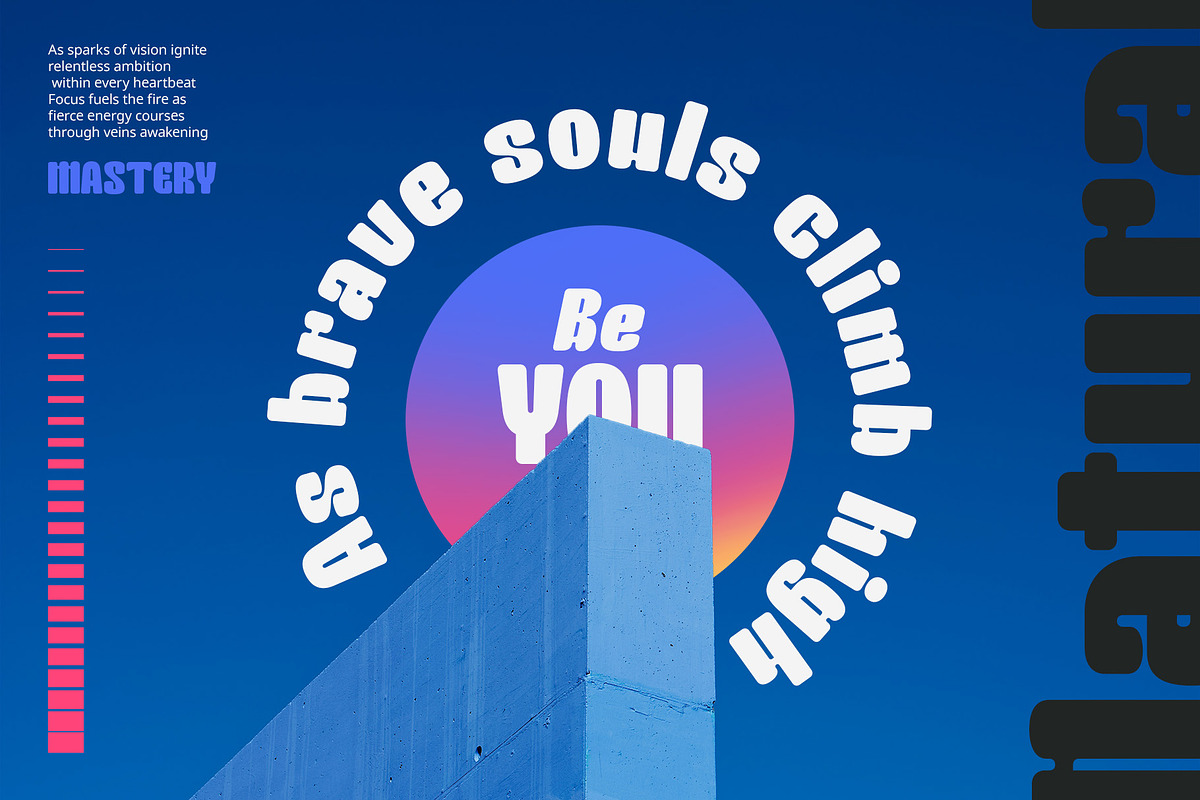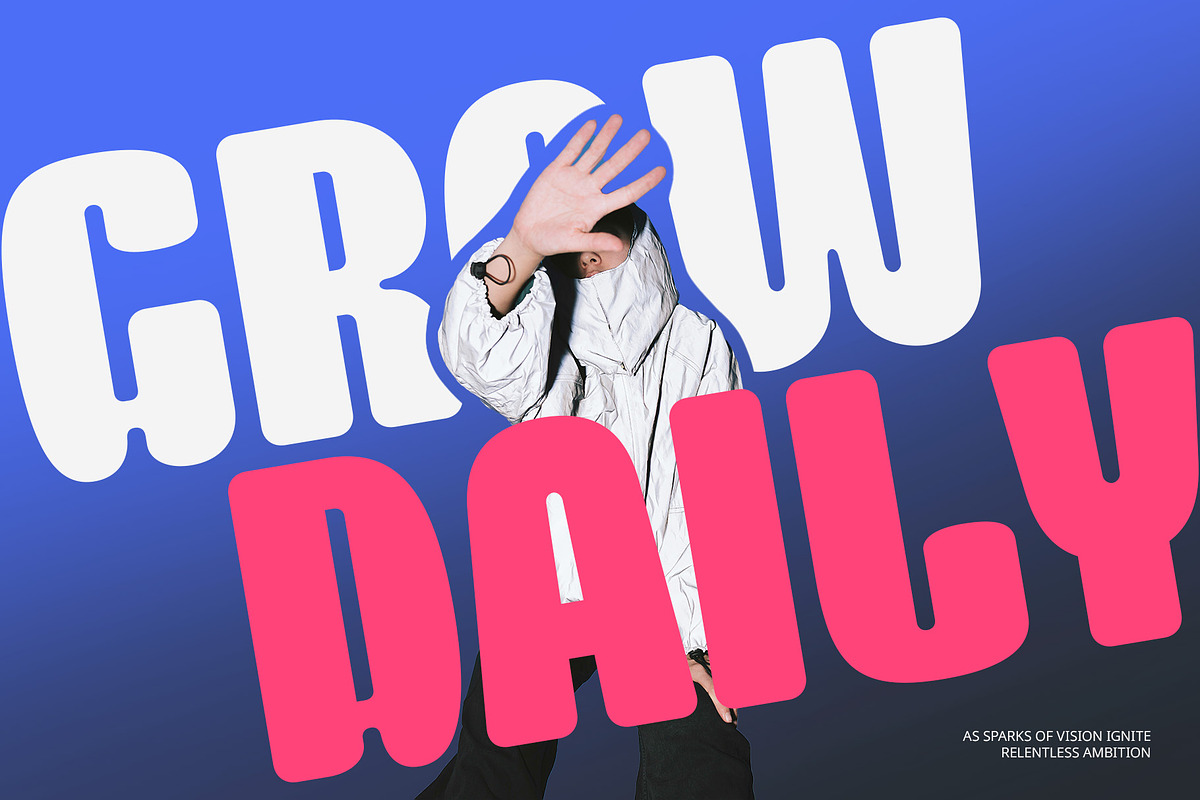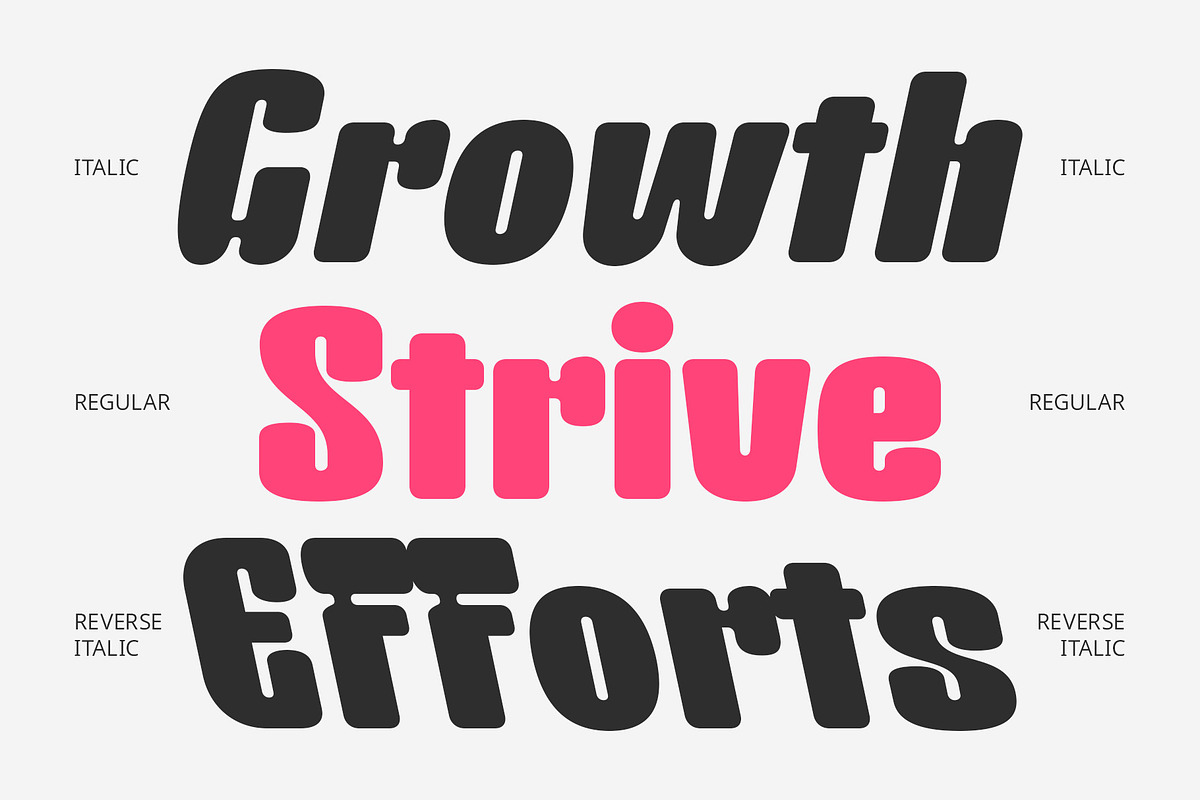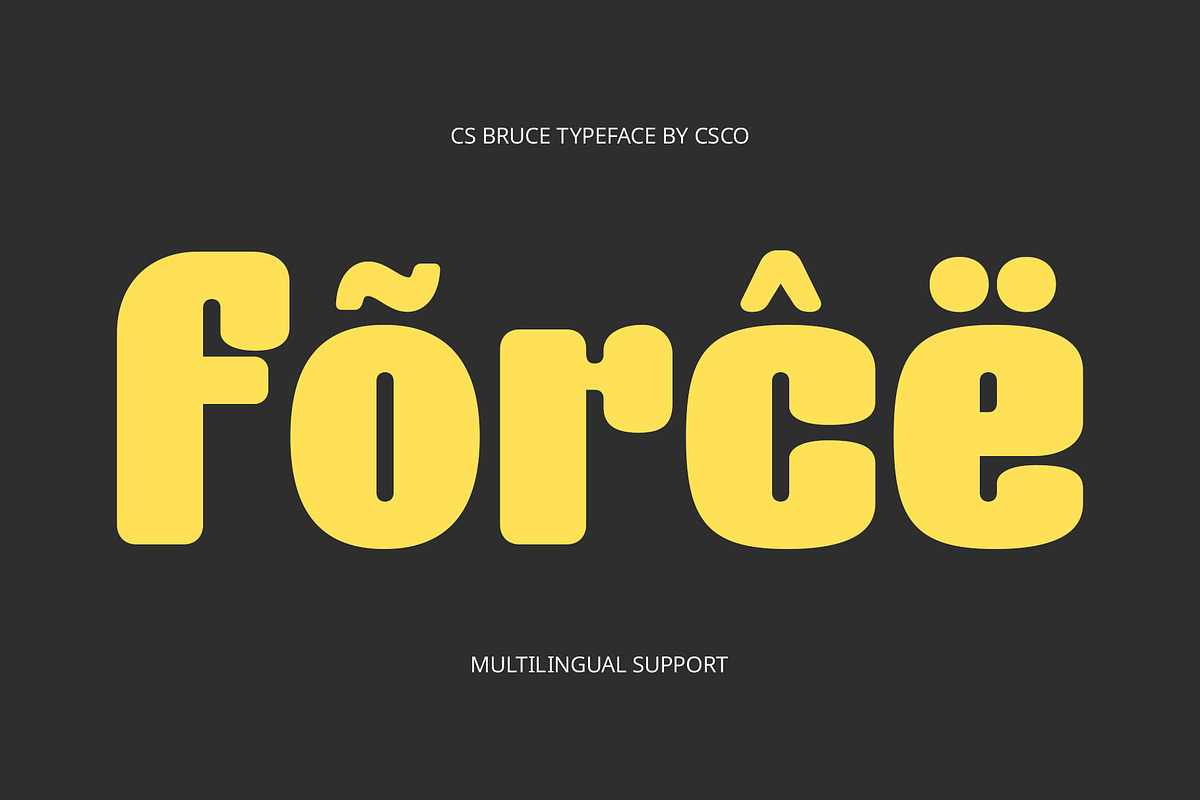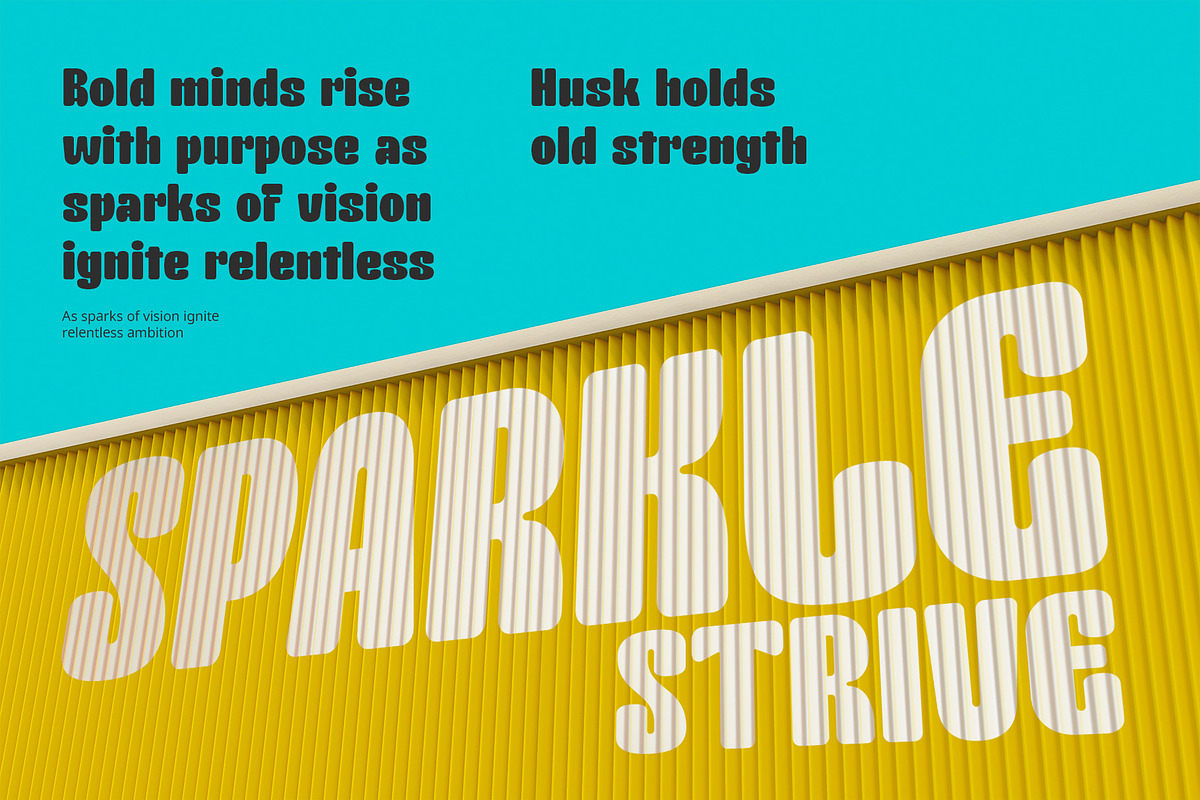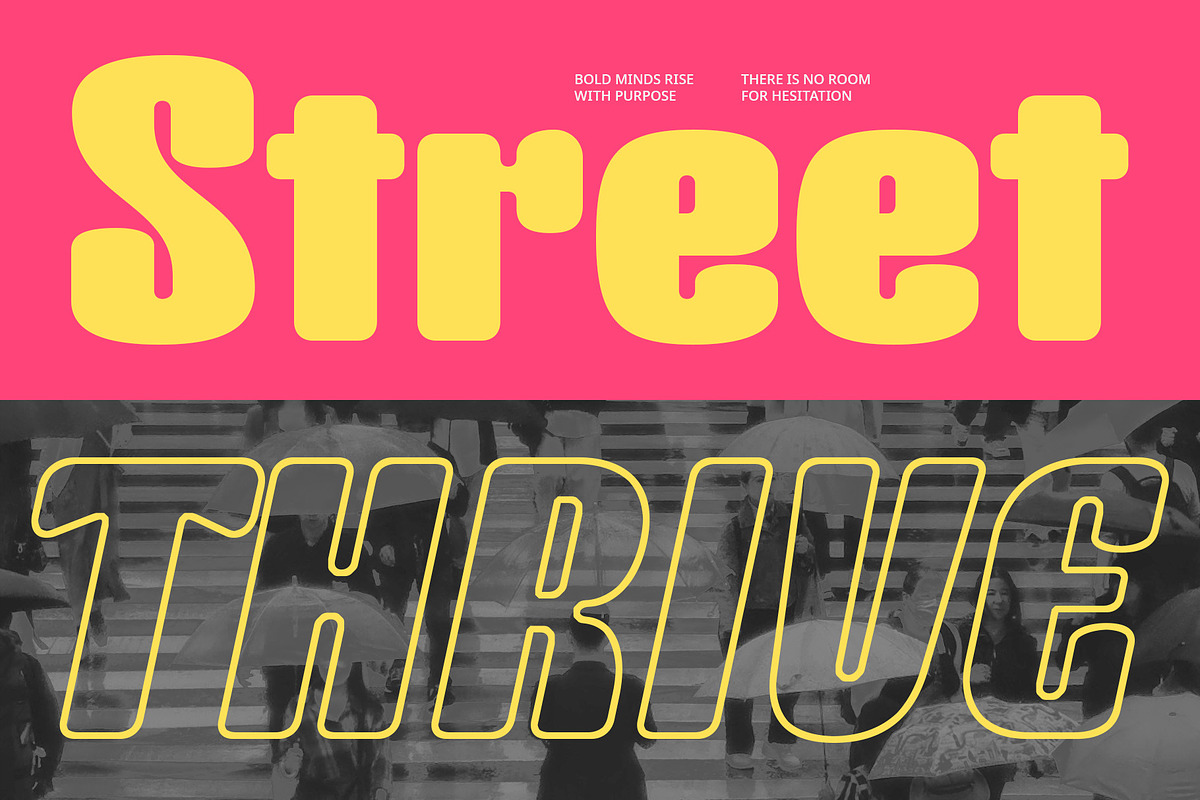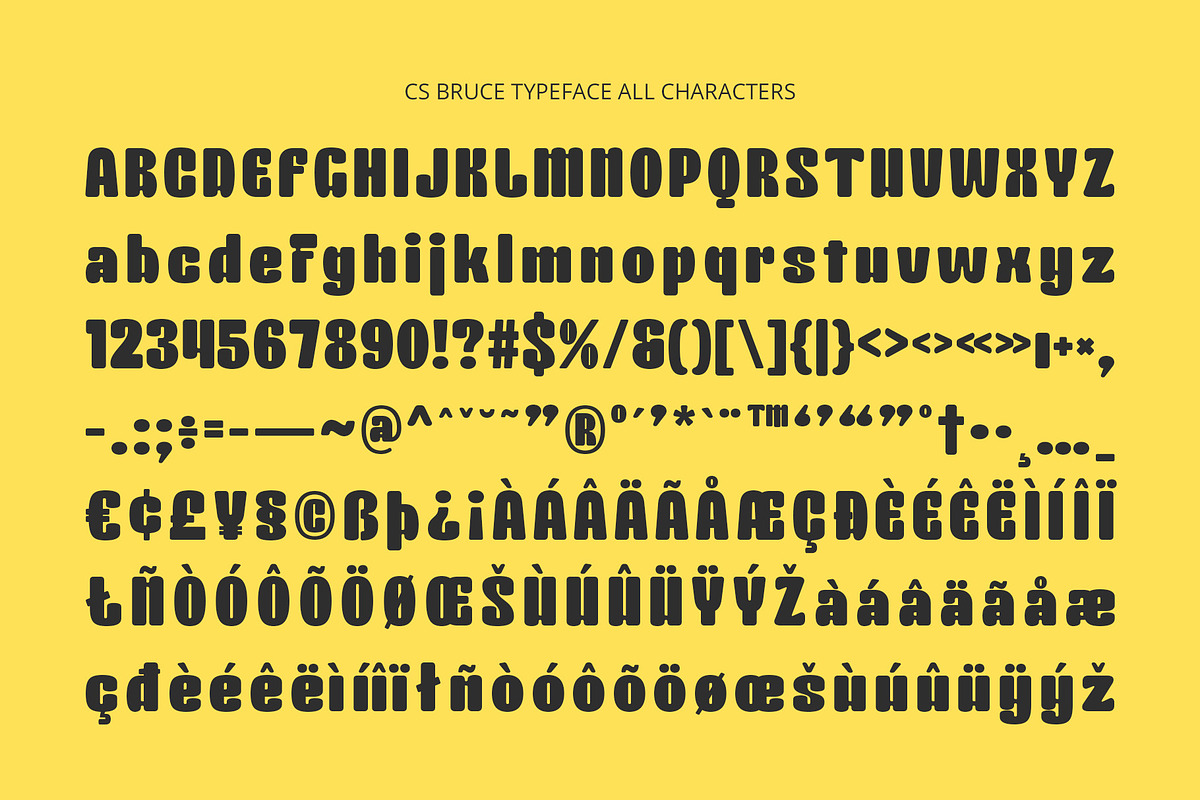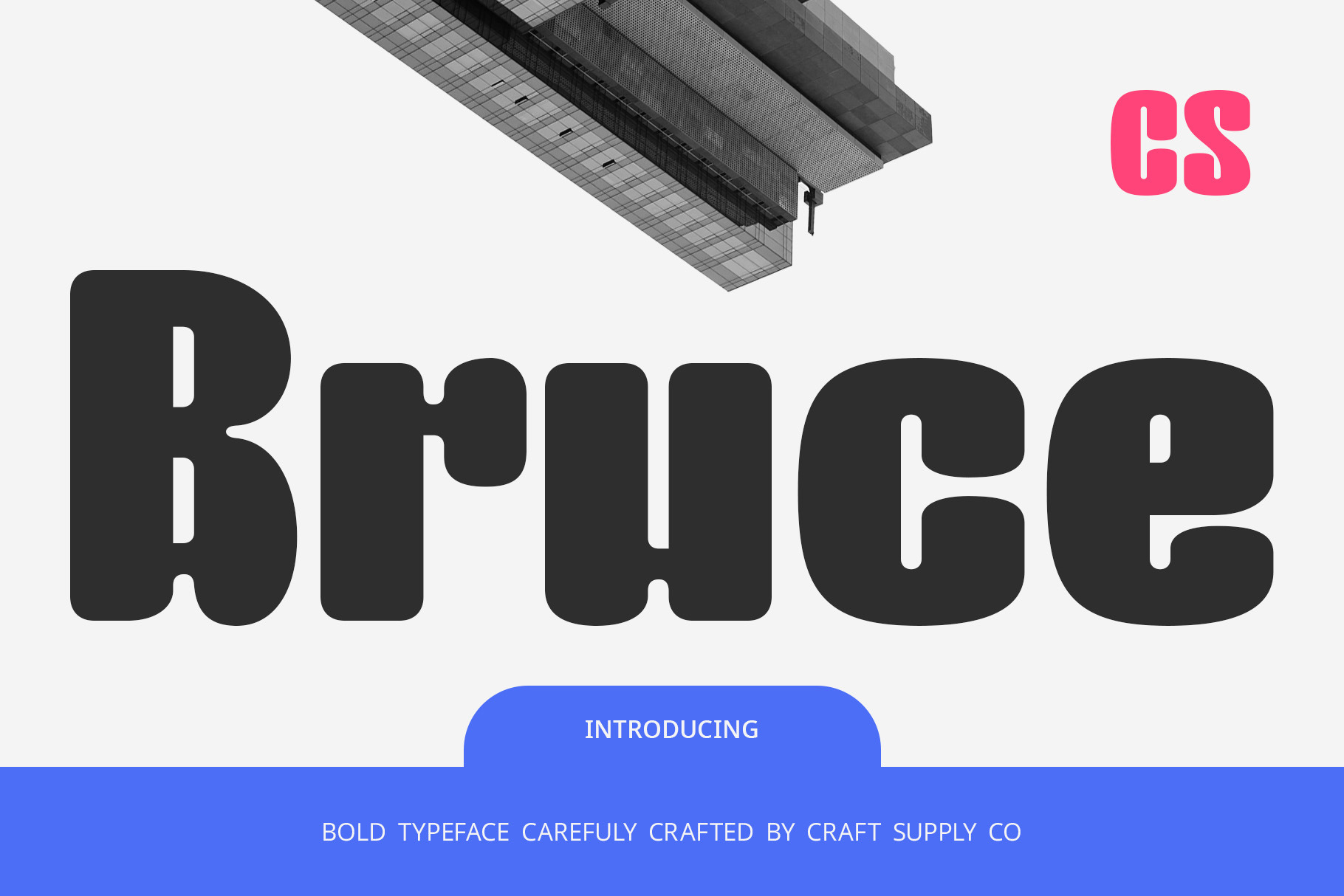
CS Bruce – Bold Font
CS Bruce – A Bold and Confident Display Font
Powerful Presence, Modern Appeal CS Bruce is a bold display sans serif font designed with a clean and contemporary aesthetic, making a strong visual impact from the first glance. With thick, well-defined strokes and confident letterforms, this typeface radiates strength, clarity, and professionalism. Its structure is meticulously balanced to ensure readability while maintaining a striking and assertive appearance.
Designed to Command Attention Every character in CS Bruce is constructed to appear robust and authoritative, perfect for capturing attention in posters, headlines, or impactful branding work. The bold weight gives it a dominant visual voice, ideal for projects that need to convey modern confidence and high-impact messaging.
Versatile and Assertive Whether used in editorial design, advertising, packaging, or corporate identity, CS Bruce delivers a dynamic presence that feels both fresh and timeless. Its strong silhouette and contemporary style make it a versatile choice for creative professionals looking to create visual hierarchy and emphasis in their compositions.
Bold Typography for Modern Creatives With its unapologetically strong form, CS Bruce is more than just a bold font—it’s a statement piece that brings clarity, purpose, and power to your design. Use it to elevate your visual message with a tone that’s bold, confident, and unmistakably modern.